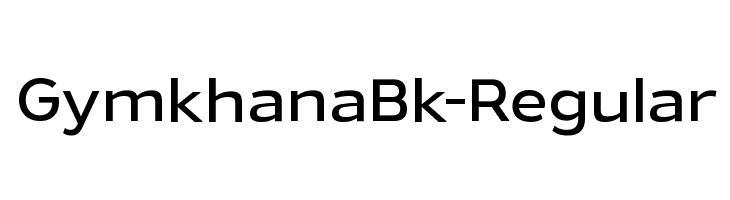
A playful, hand-drawn font with bold, irregular strokes and a whimsical charm.
A bold, angular, and condensed font ideal for striking headlines.
An ornate blackletter font with intricate flourishes and bold strokes.
Ornamental vector-style flourishes and decorative motifs.
A casual, handwritten font with a playful and informal style.
A bold, playful font with rounded, decorative characters and whimsical flourishes.
A graceful, calligraphic script font with elegant flourishes.
A flowing, elegant script font with a modern calligraphic style.
A modern, monospaced font with an extra light weight and geometric design.
A traditional, brush-style font with bold, expressive characters.
A bold, geometric font with a futuristic and robotic design.
A bold, italicized font with a futuristic and dynamic style.
A bold, handwritten font with a playful and energetic style.
A playful, elongated font with tall, narrow letters and a modern feel.
A playful, hand-drawn font with a bold, scribbled texture.
A bold, geometric font with a modern and futuristic style.
A surreal, anatomical illustration-based decorative display font.
A bold, cursive font with elegant, flowing letterforms and sharp serifs.
A bold, playful font with rounded edges and a hand-drawn feel.
A playful, bold handwritten font with thick, rounded strokes.
A playful, bold font with rounded edges and a friendly style.